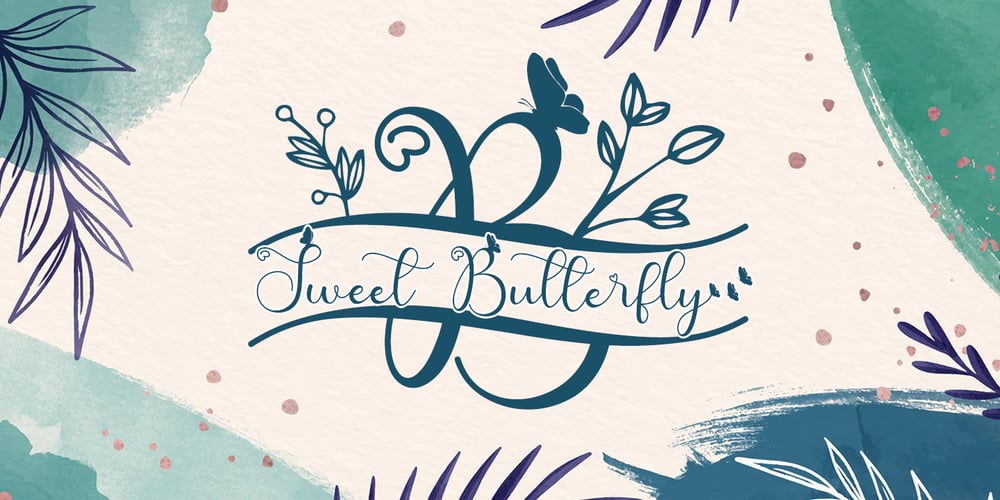
Sweet Butterfly Font Family was designed by Agung Eko Nugroho and published by AEN Creative Studio. Sweet Butterfly contains 3 styles and family package options. Sweet Butterfly is a beautiful script font with a romantic monogram theme, featuring lovely, butterfly ornaments. Fall in love with its authentic feel and use it to create gorgeous wedding invitations, thank you cards, logos, business, branding, and every other design which needs a handwritten touch.This font is PUA encoded which means you can access the available glyphs and swashes with ease!